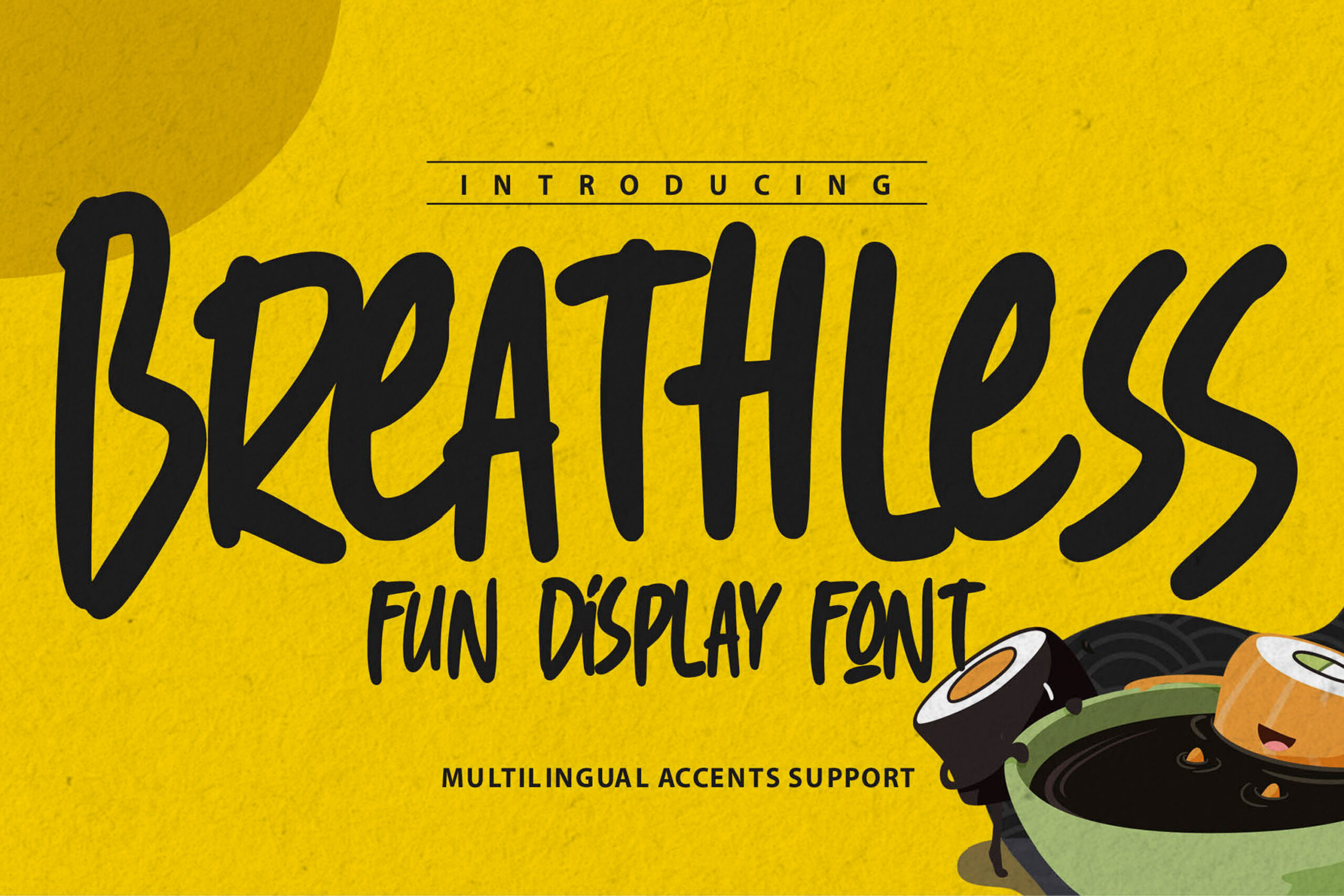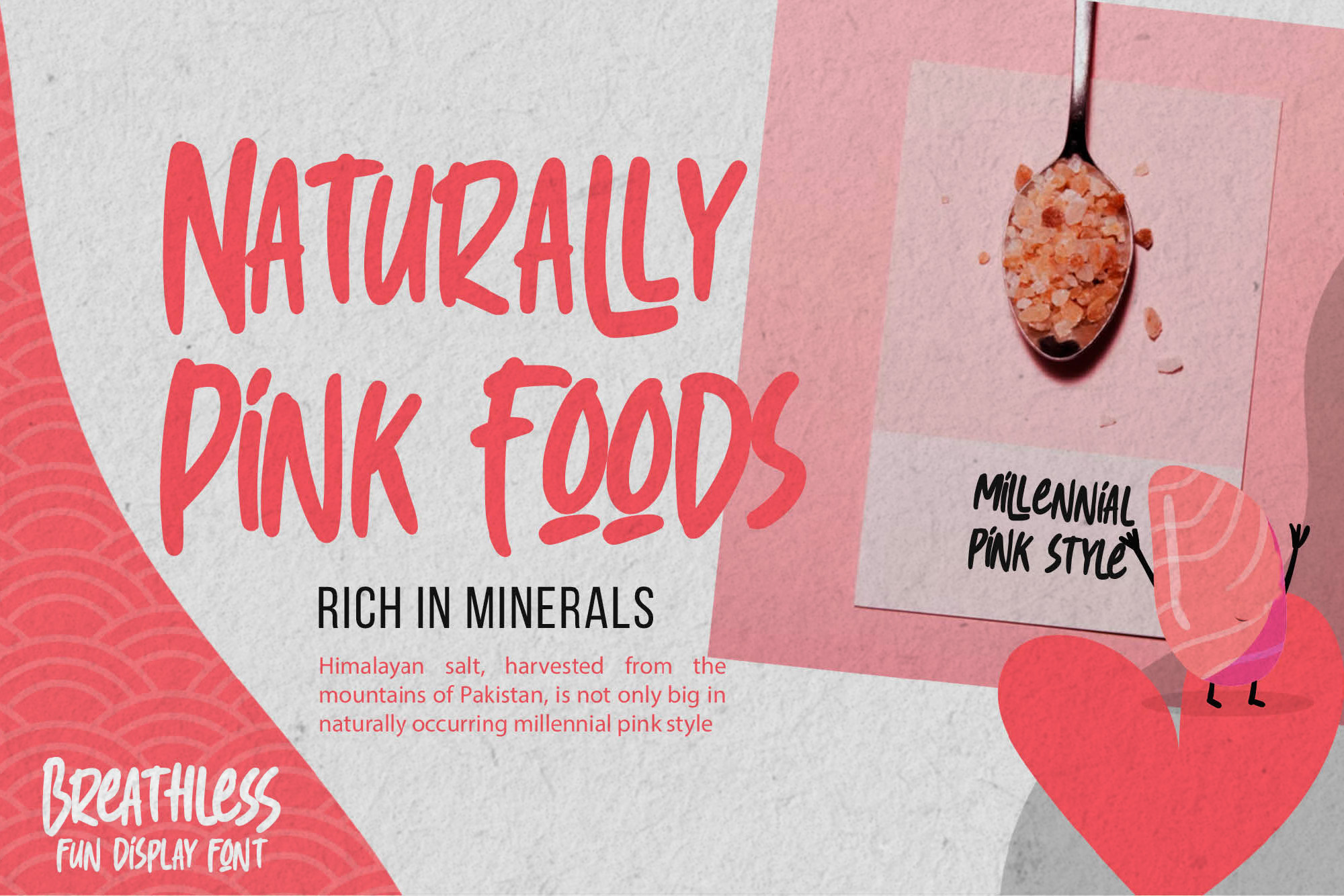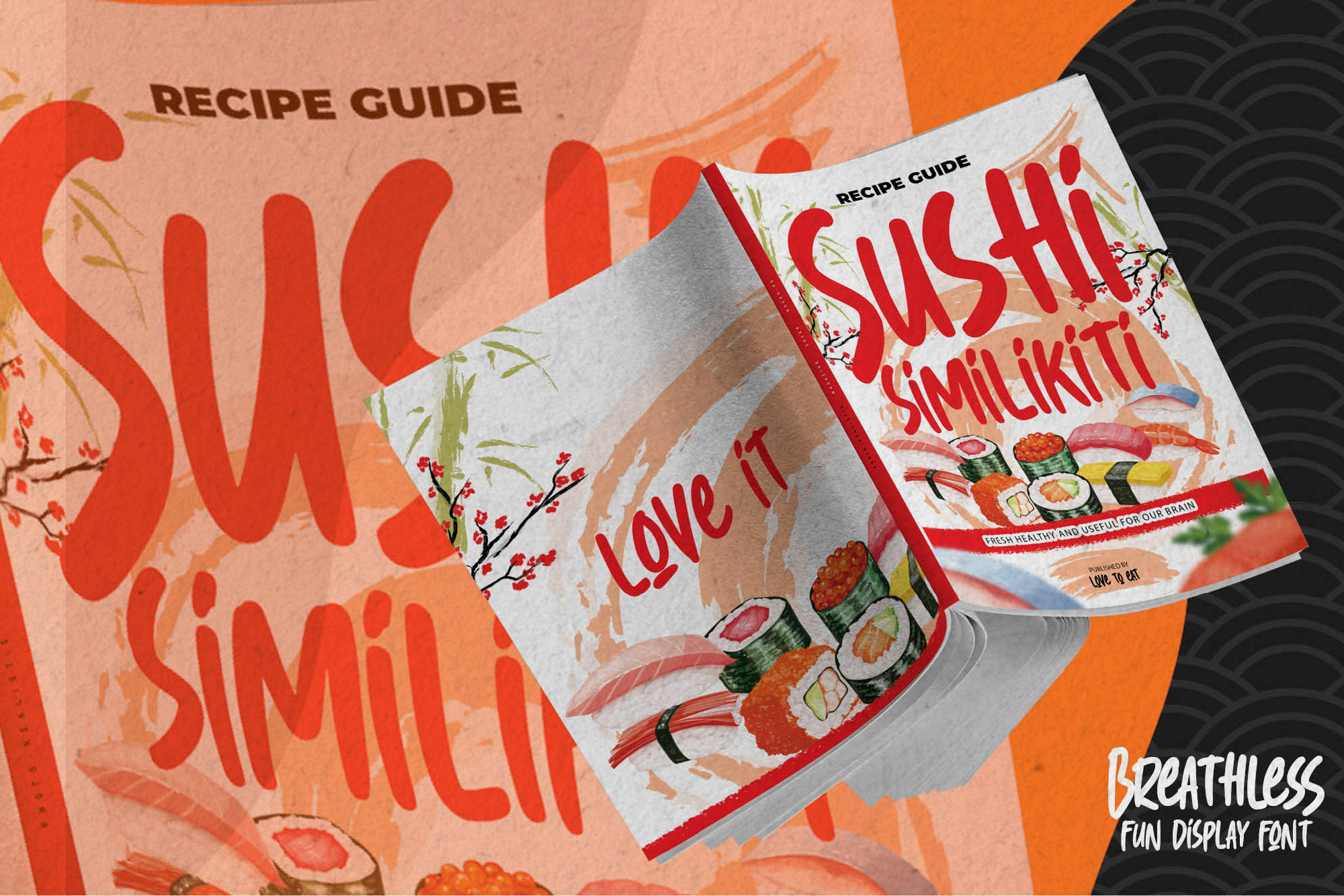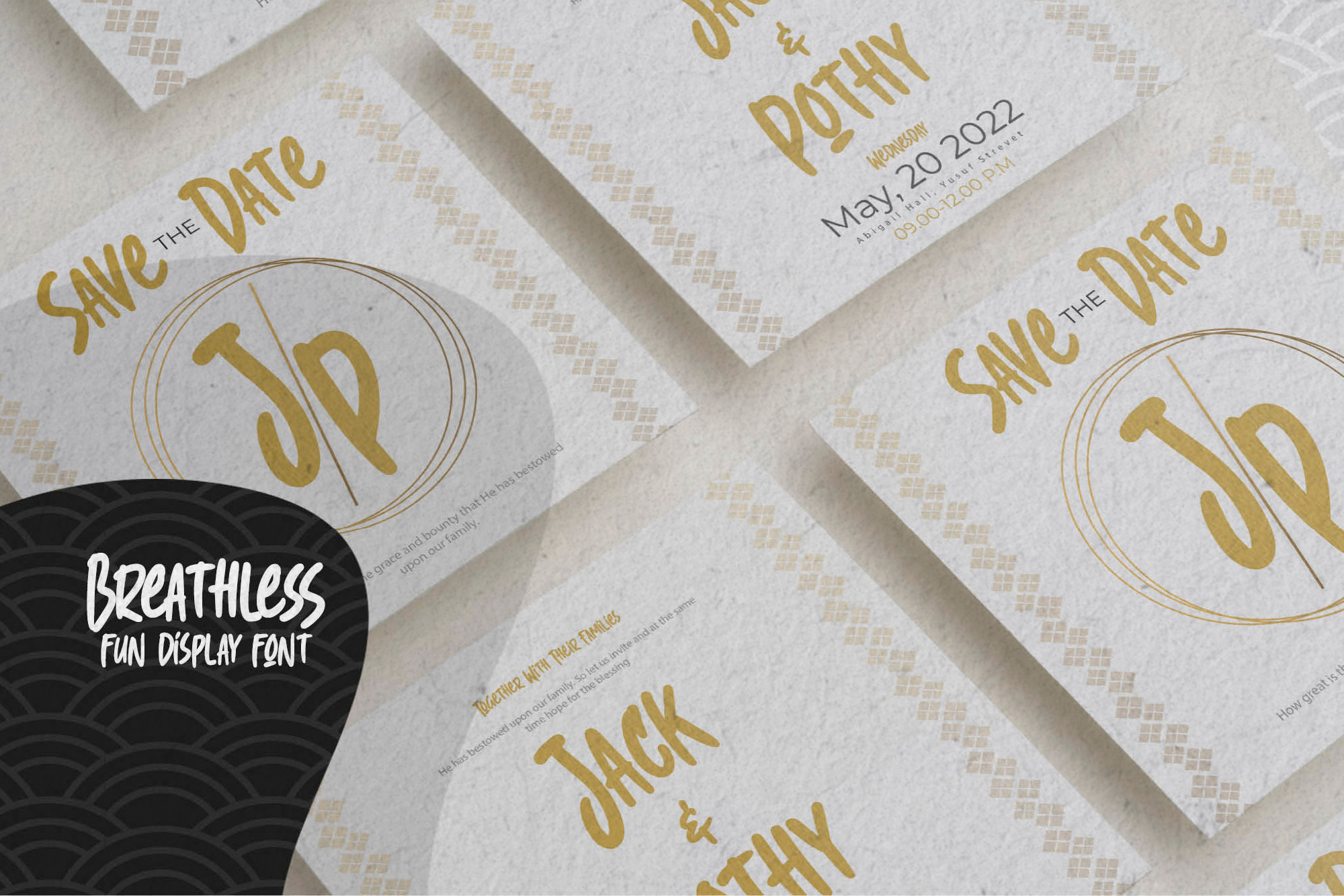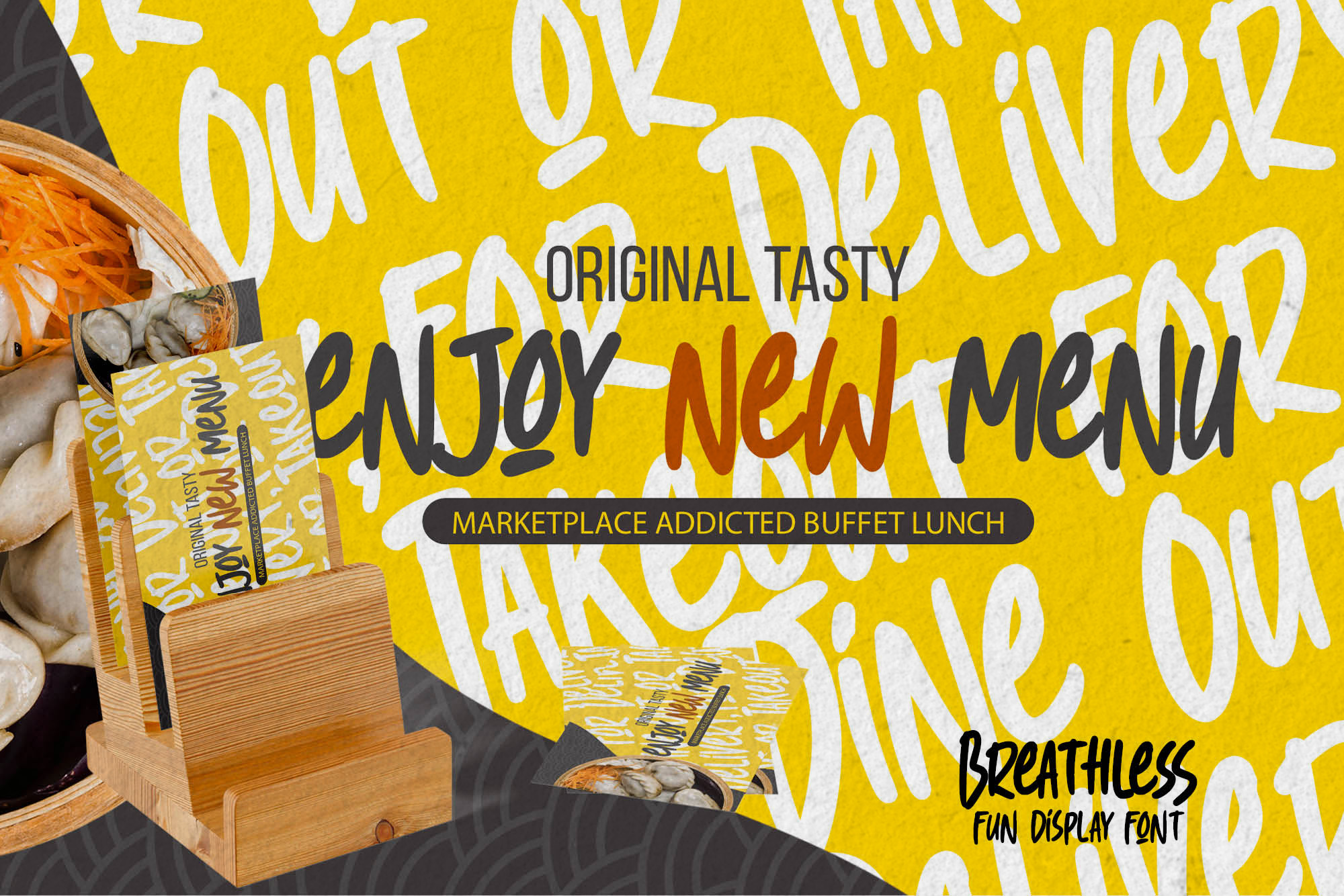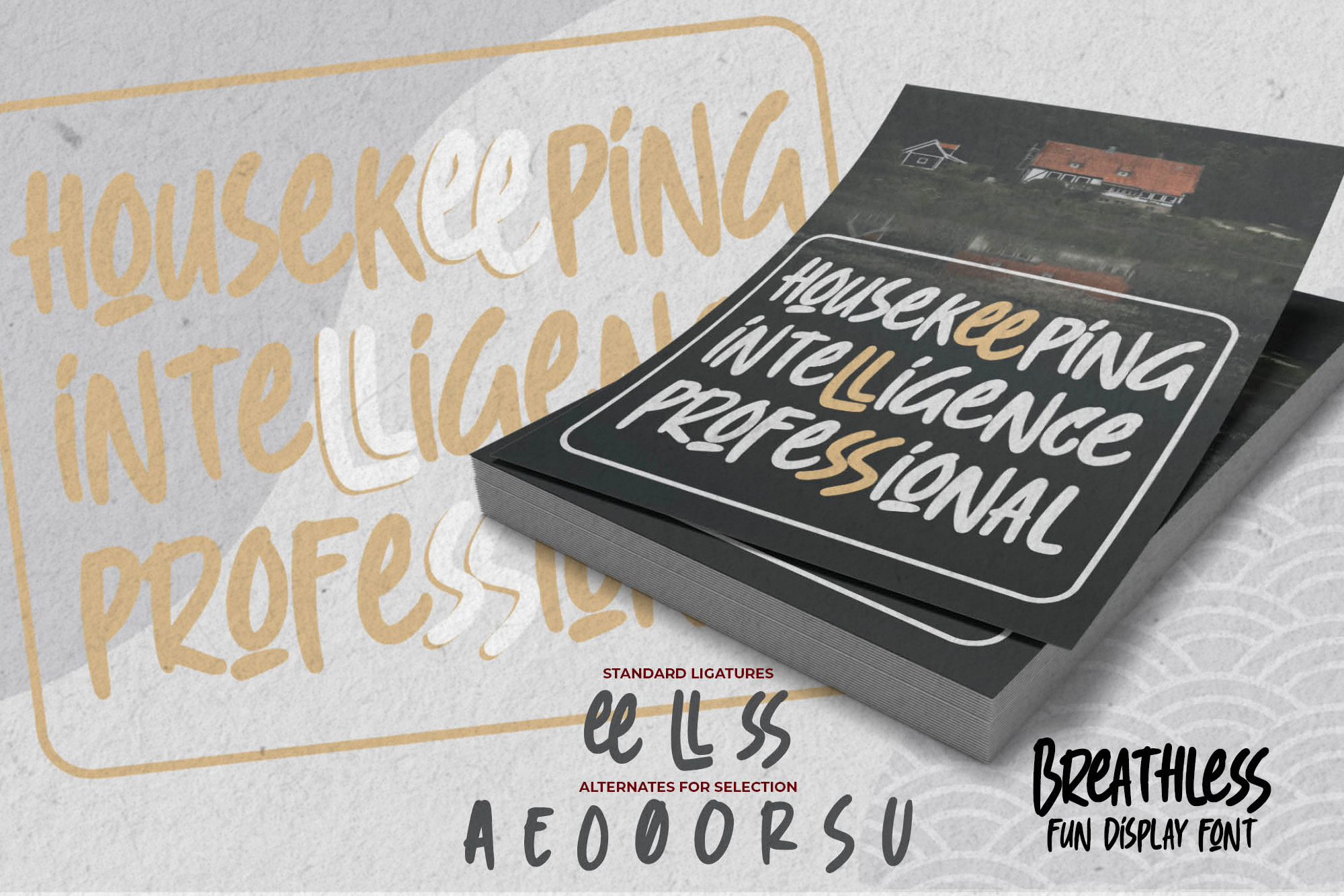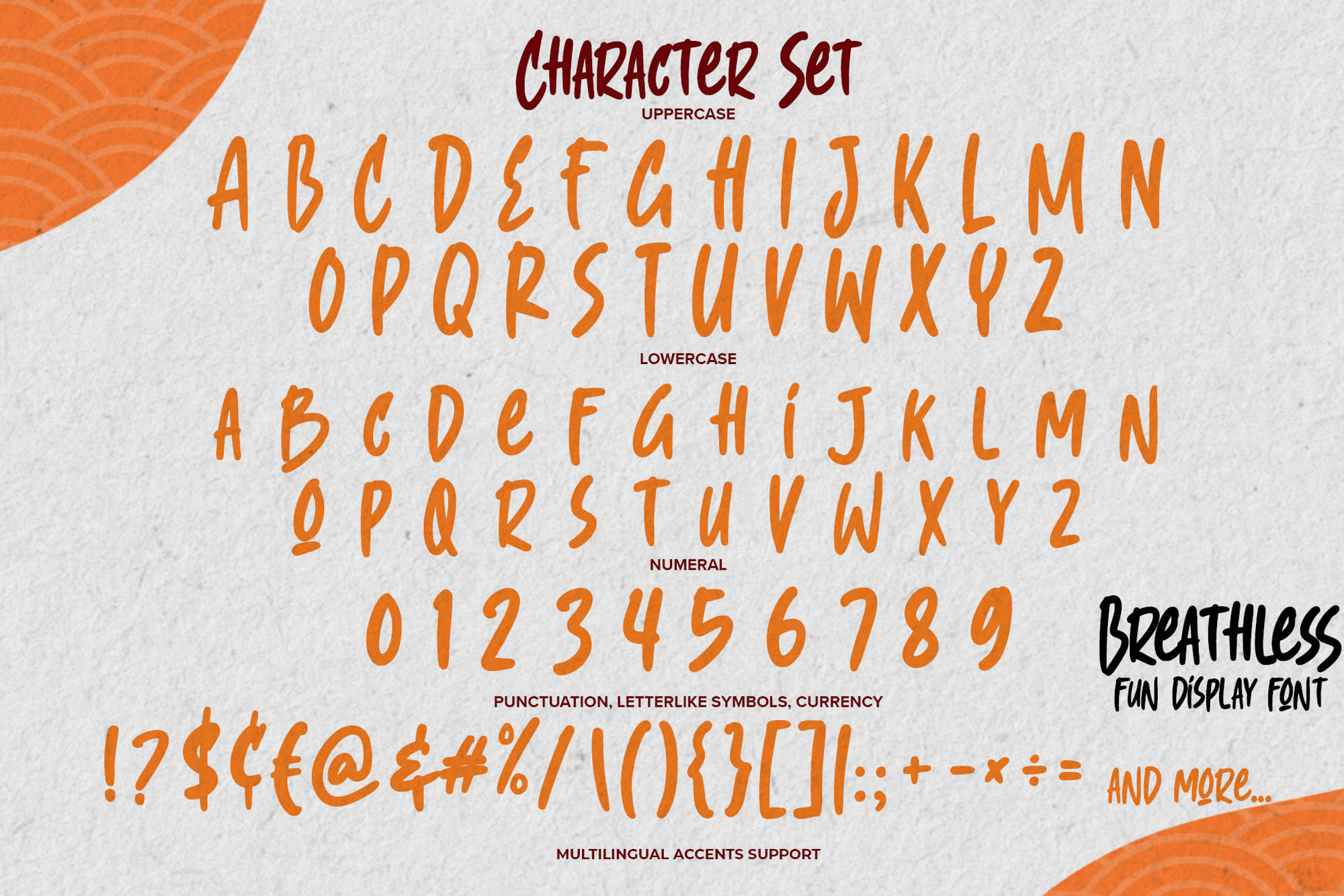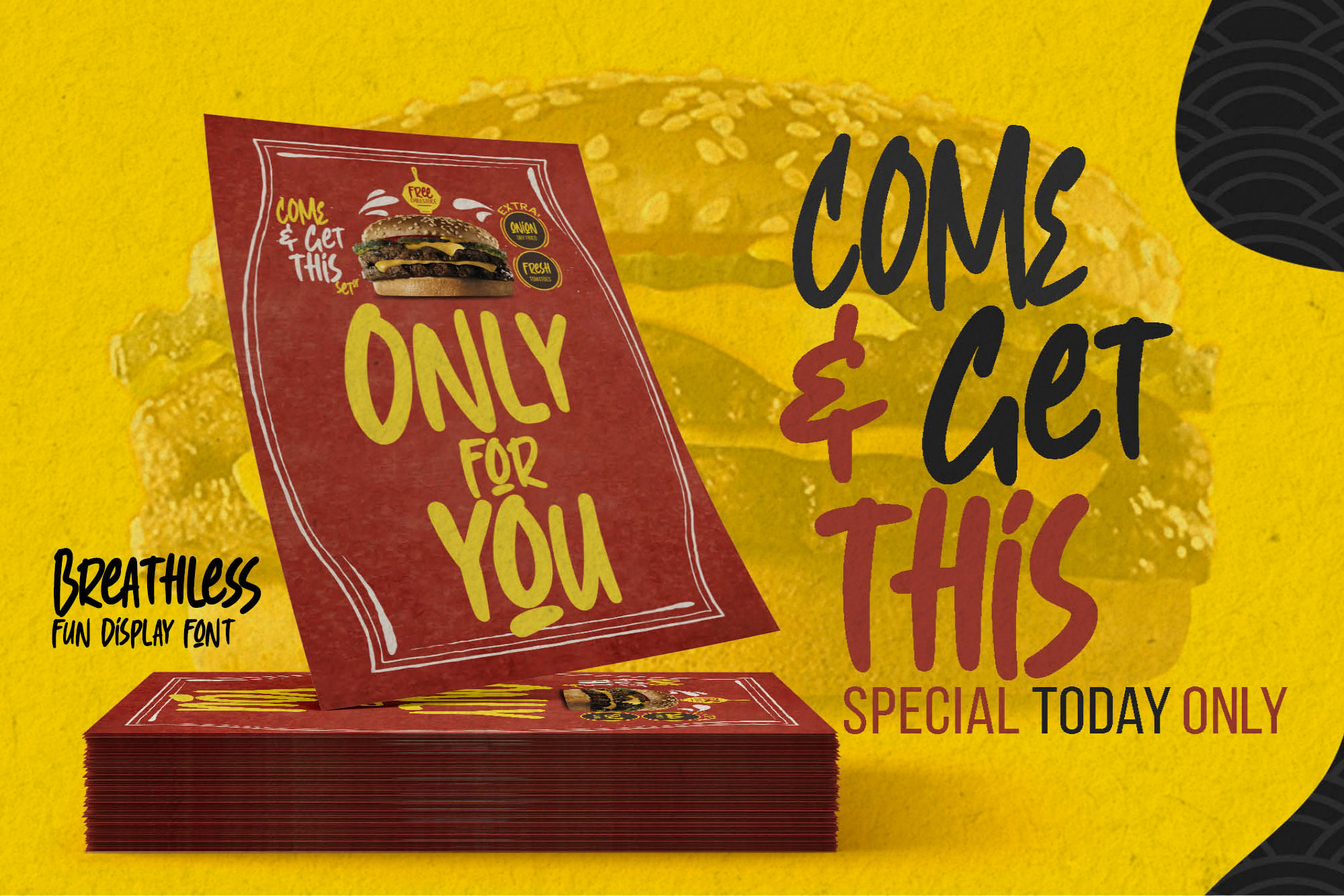
BREATHLESS – Fun Display Font, modern style and dramatic movement that is written casually and quickly.
The best for labels,poster,project , designs look modern, authentic and fun. It’s perfect for labels, quotes, posters, DIY projects, branding, packaging, greeting cards, websites, photography overlays, signs, scrapbooking, tags and so much more! That is why BREATHLESS has a textured, and cool characteristic more natural look. You can activate Ligatures and Alternates glyphs OpenType panel.